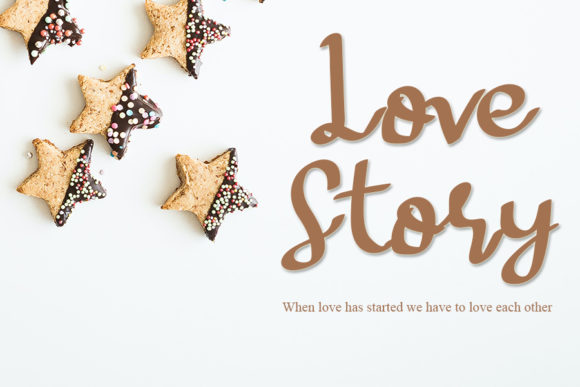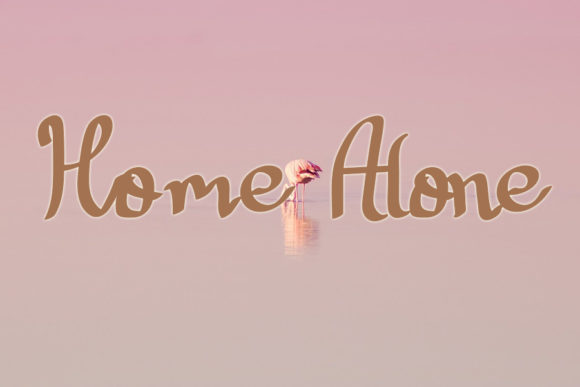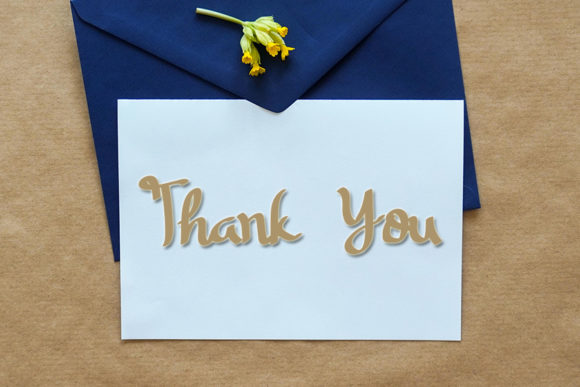
Introducing December Lovely Font: Elevate Your Creativity with Elegance
Are you a designer, crafter, or DIY enthusiast looking for a font that can add a touch of elegance and sophistication to your projects? Look no further than December Lovely Font, a delicate and elegant handwritten font that is sure to turn any creative idea into a true piece of art.
What is December Lovely Font?
December Lovely Font is a beautiful, handwritten font that is perfect for a variety of creative projects. Whether you’re looking for fonts for Instagram, calligraphy scripts for DIY projects, or a elegant font for your blog or website, December Lovely Font is an excellent choice. Its delicate and elegant strokes make it ideal for adding a touch of sophistication to any design.
Features of December Lovely Font
• Delicate and Elegant: December Lovely Font features delicate and elegant strokes that add a touch of sophistication to any design.
• Handwritten: This font is a handwritten font, which gives it a personal and unique touch.
• Versatile: December Lovely Font is perfect for a variety of creative projects, including Instagram fonts, calligraphy scripts, and DIY projects.
• Easy to Read: Despite its delicate nature, December Lovely Font is easy to read, making it perfect for body text and headlines.
Uses of December Lovely Font
December Lovely Font is a versatile font that can be used for a variety of creative projects, including:
• Instagram Fonts: Add a touch of elegance to your Instagram posts and stories with December Lovely Font.
• Calligraphy Scripts: Use December Lovely Font to create beautiful calligraphy scripts for DIY projects, such as wedding invitations, greeting cards, and more.
• DIY Projects: December Lovely Font is perfect for DIY projects, such as crafting, scrapbooking, and paper crafting.
• Blog or Website: Add a touch of elegance to your blog or website with December Lovely Font.
Benefits of Using December Lovely Font
Using December Lovely Font can bring a number of benefits to your creative projects, including:
• Elegance and Sophistication: December Lovely Font adds a touch of elegance and sophistication to any design.
• Uniqueness: December Lovely Font is a unique font that will set your designs apart from others.
• Versatility: December Lovely Font can be used for a variety of creative projects, making it a great addition to any designer’s toolkit.
Tips for Using December Lovely Font
Here are a few tips for using December Lovely Font:
• Use it for Headlines and Titles: December Lovely Font is perfect for headlines and titles, where its elegance and sophistication can really shine.
• Pair it with Other Fonts: December Lovely Font can be paired with other fonts to create a unique and interesting design.
• Experiment with Different Sizes: December Lovely Font can be used at a variety of sizes, from small to large.
December Lovely Font is a beautiful, elegant, and versatile font that is perfect for designers, crafters, and DIY enthusiasts. Its delicate and elegant strokes make it ideal for adding a touch of sophistication to any design. Whether you’re looking for fonts for Instagram, calligraphy scripts for DIY projects, or a elegant font for your blog or website, December Lovely Font is an excellent choice.